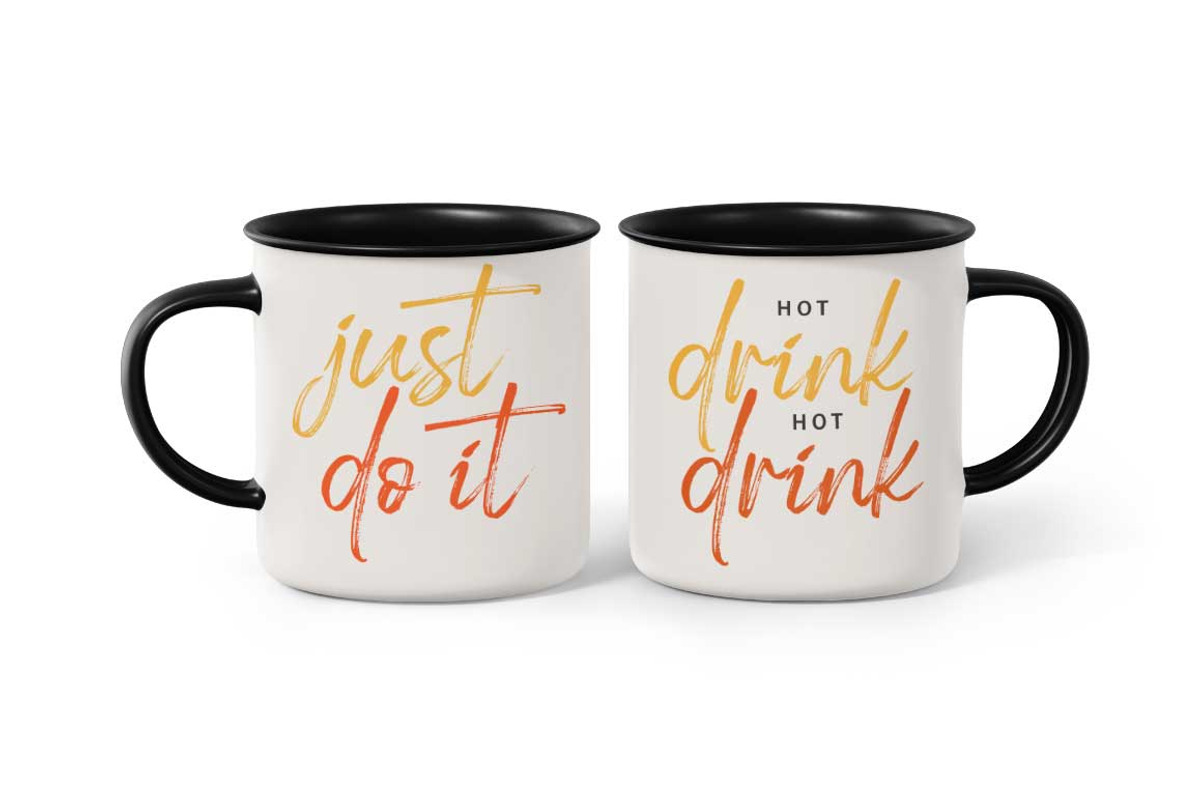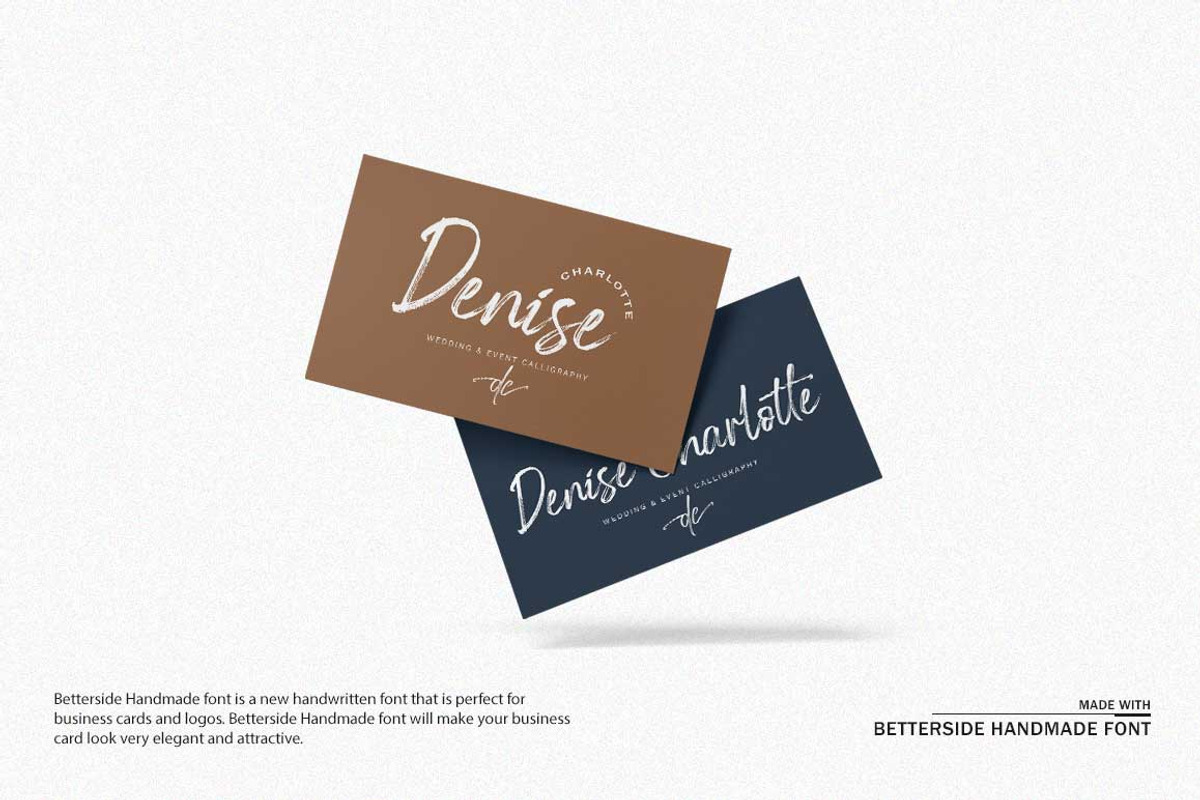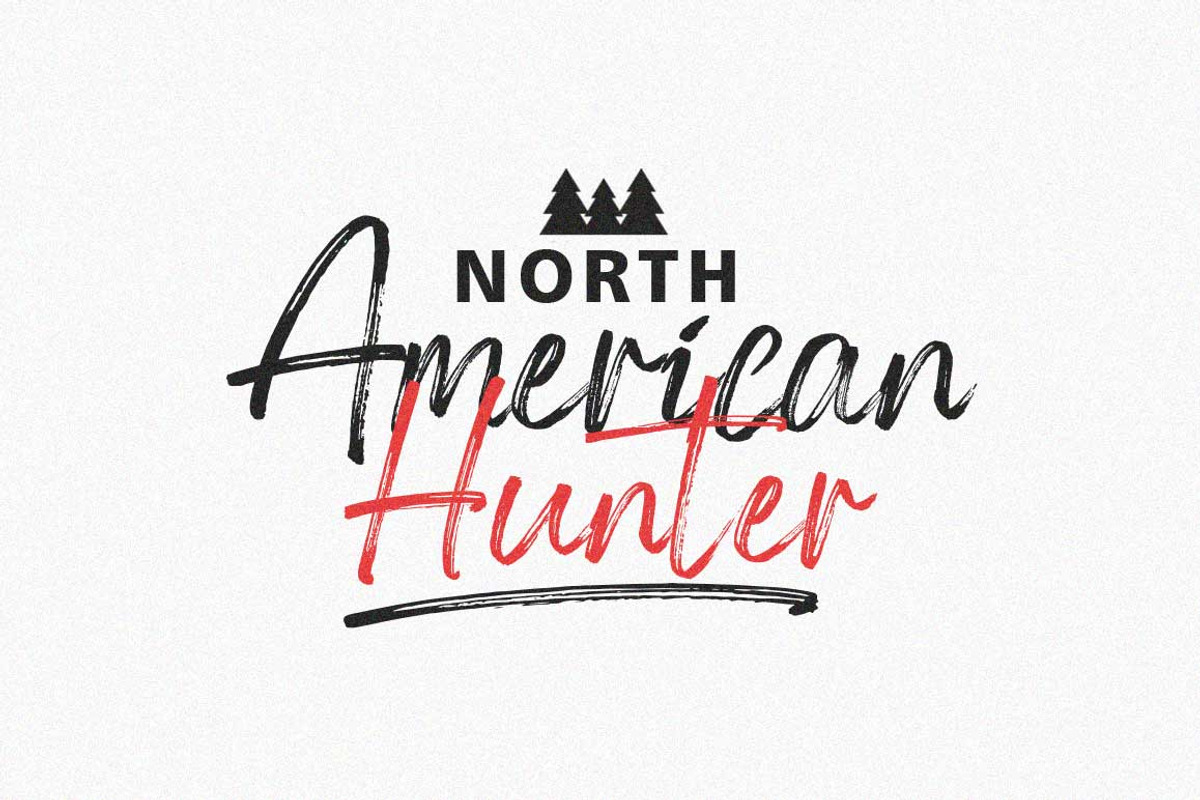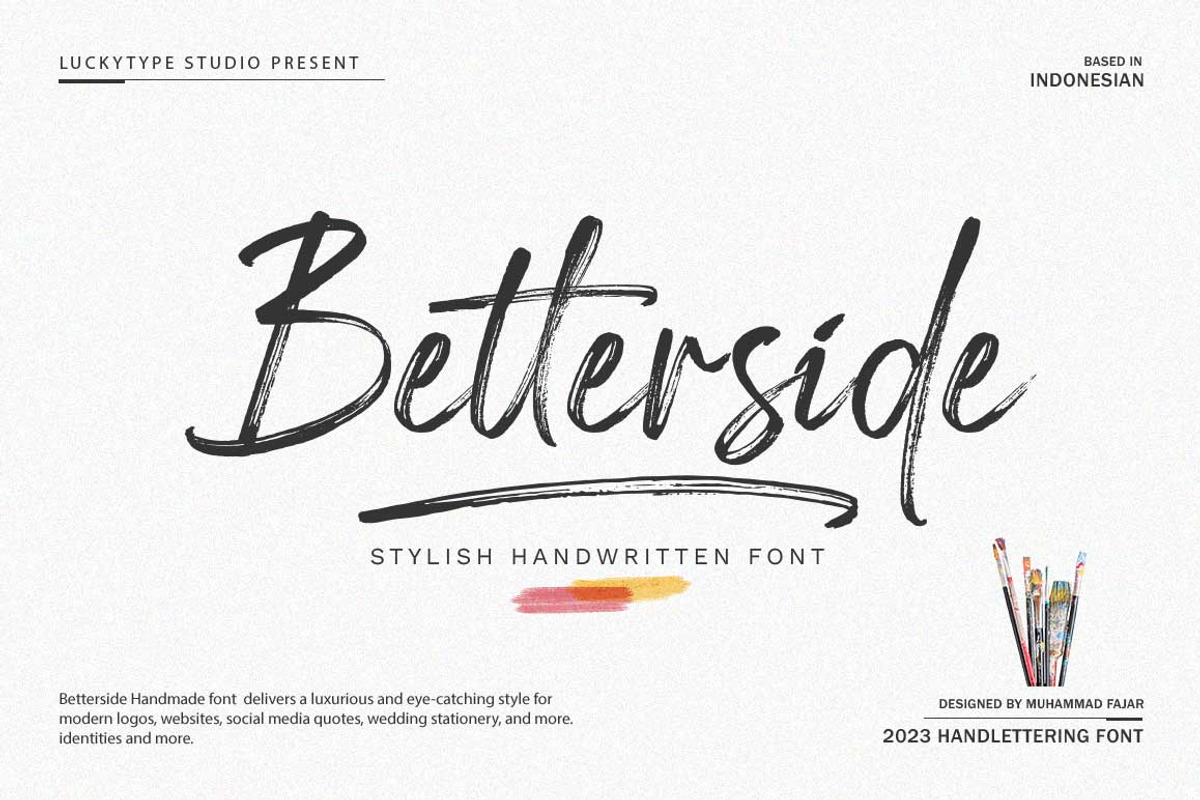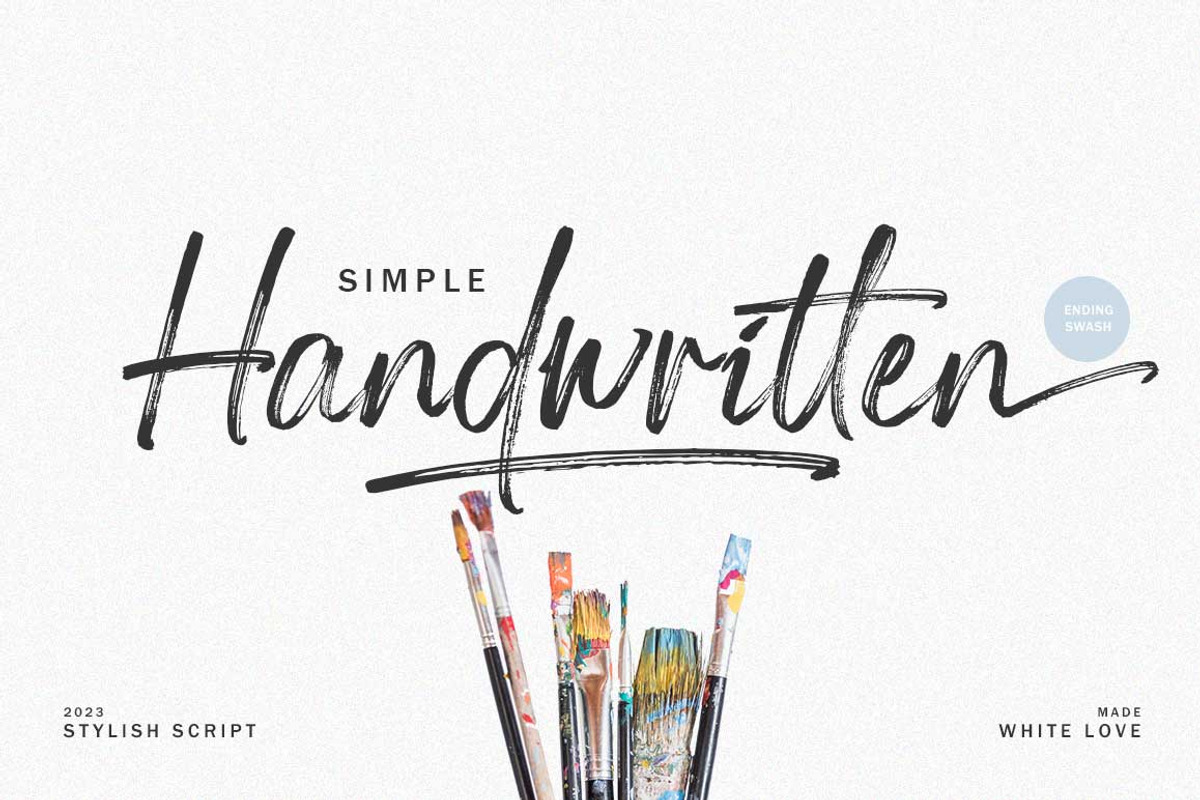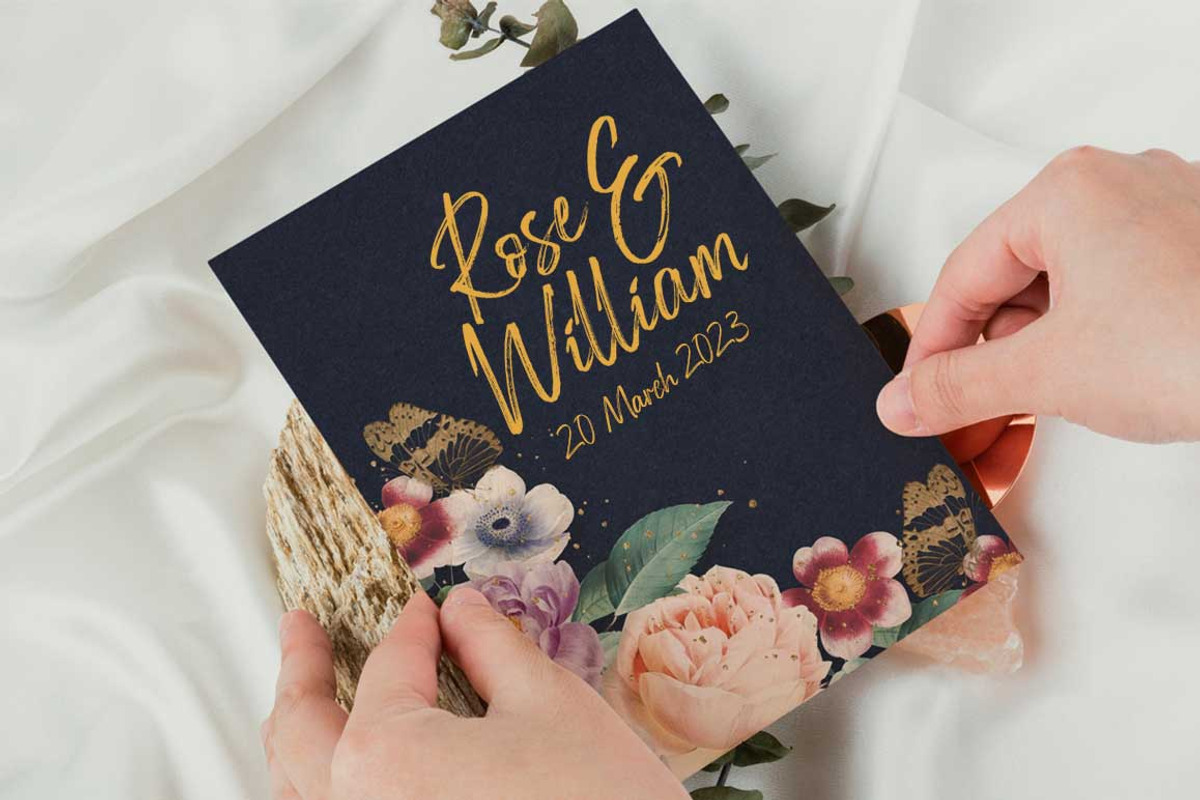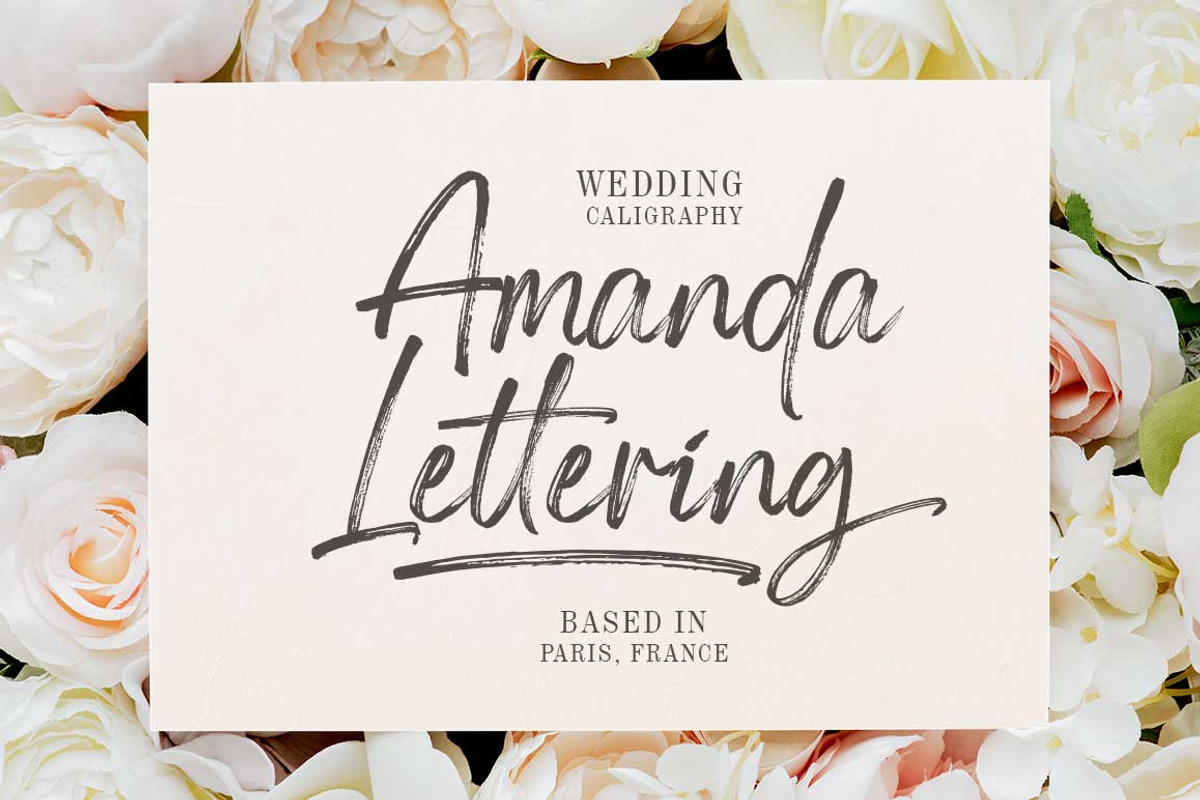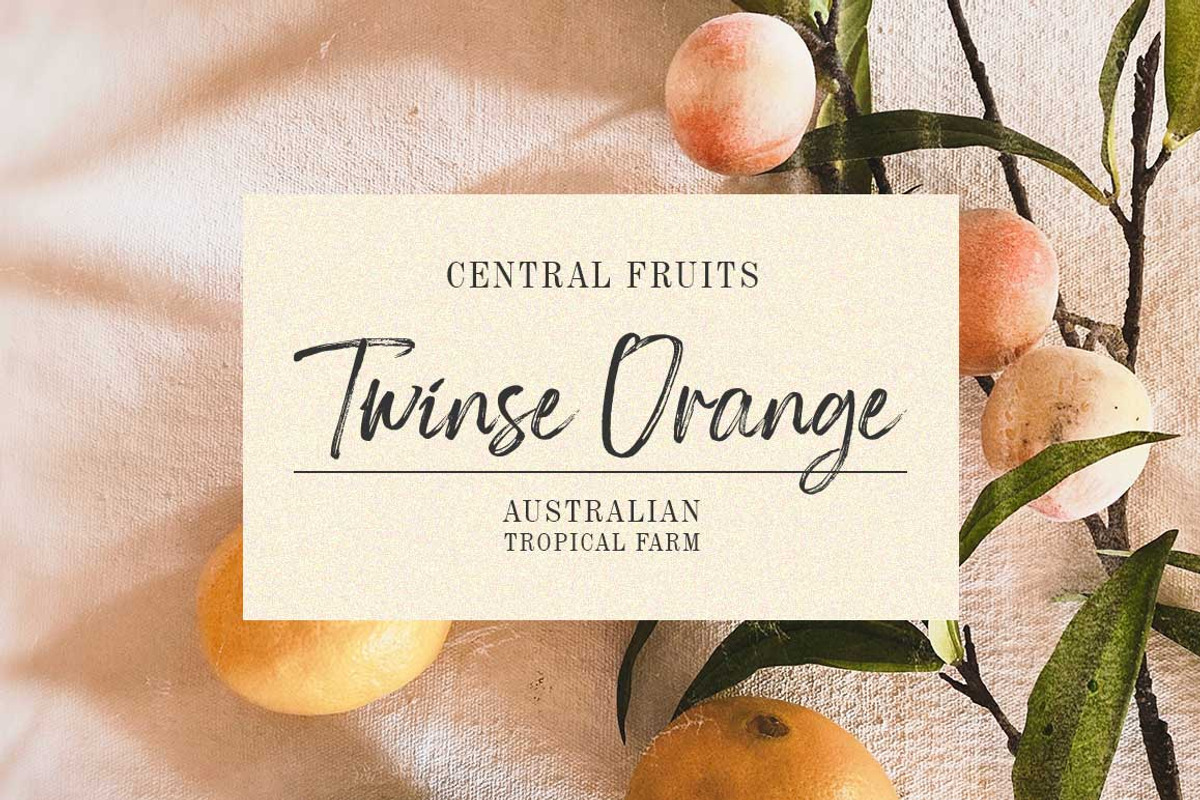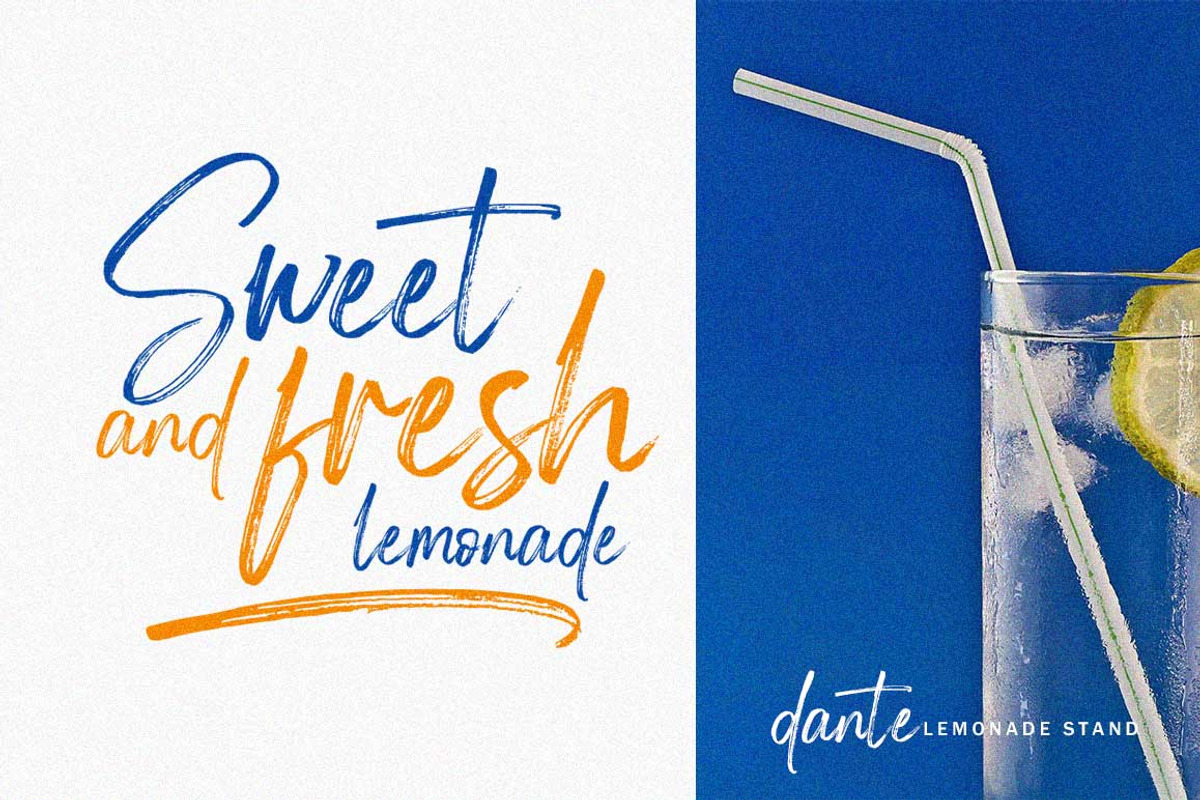
Betterside
Betterside font is a brand new handwritten font that brings a fancy and eye-catching style to modern logos, websites, social media quotes, wedding stationery and more. identity and others.